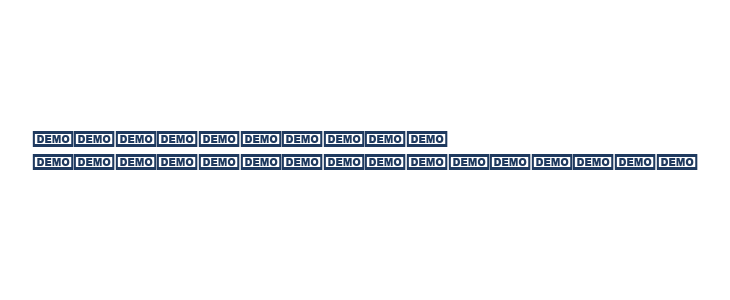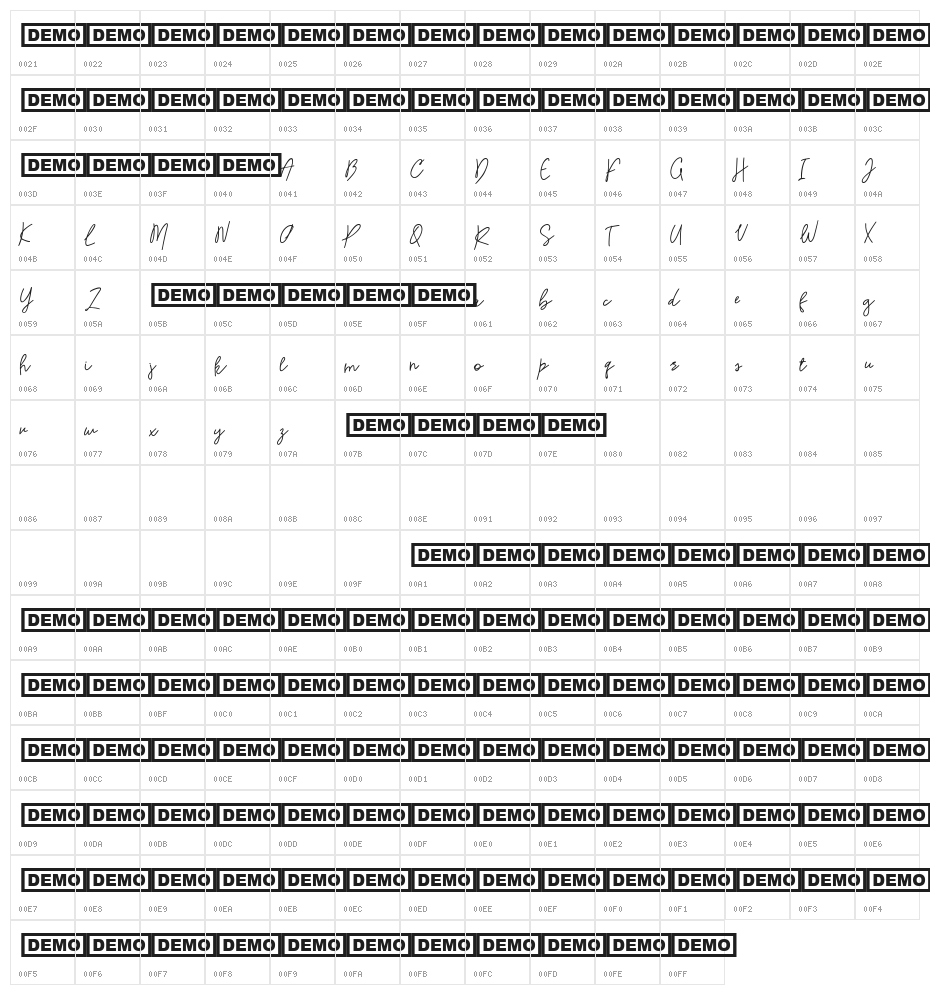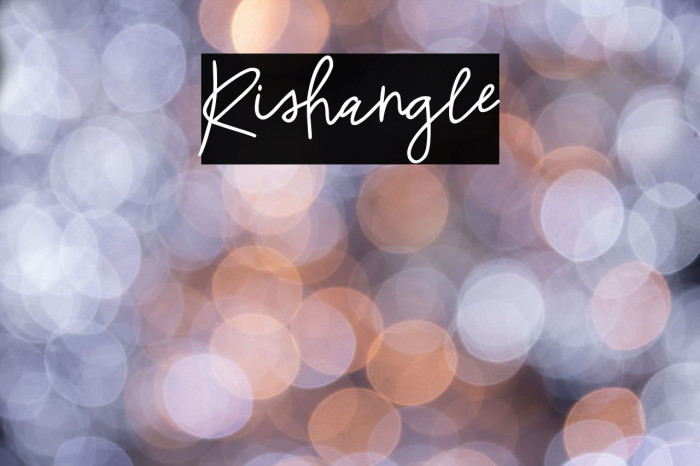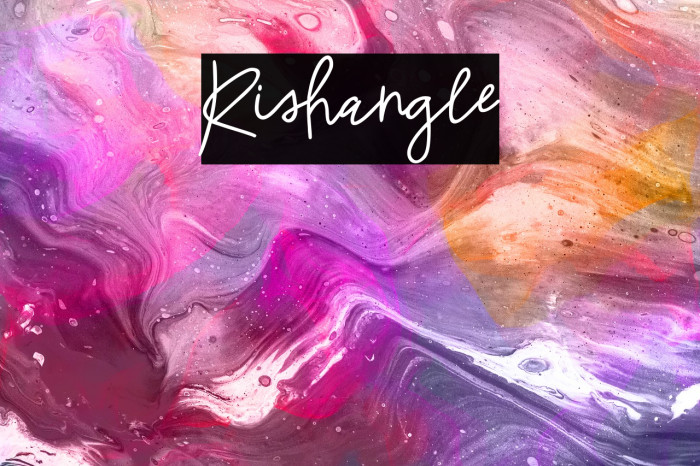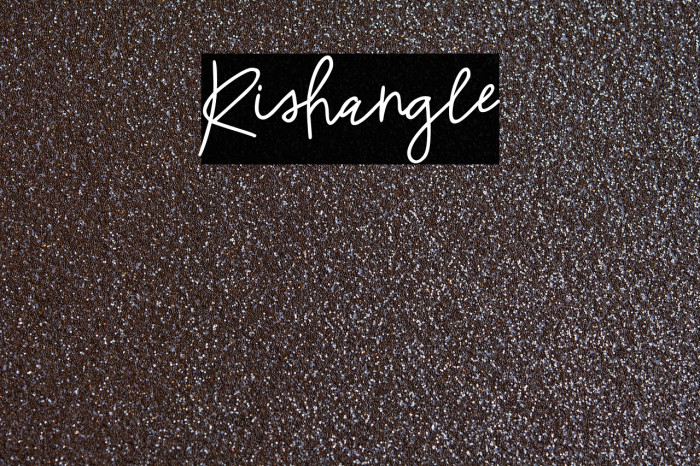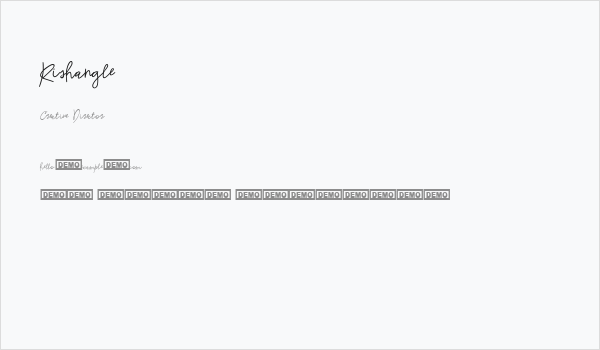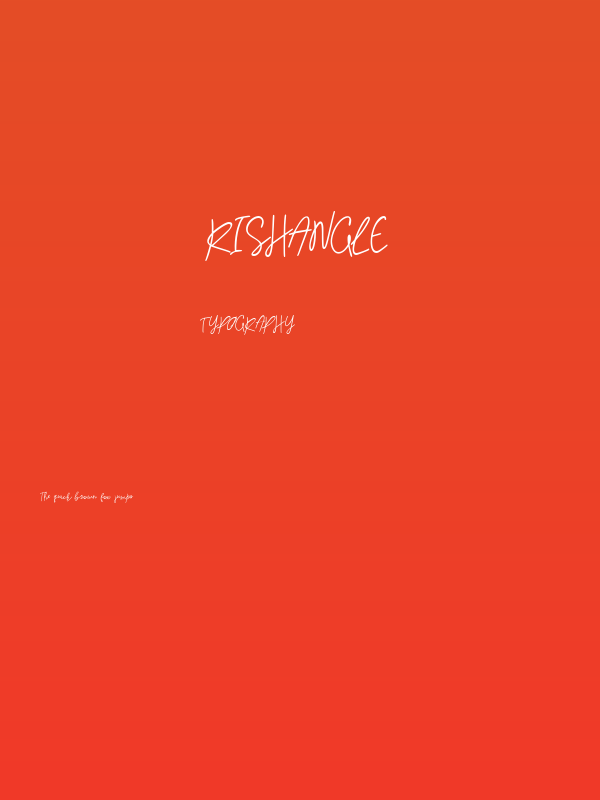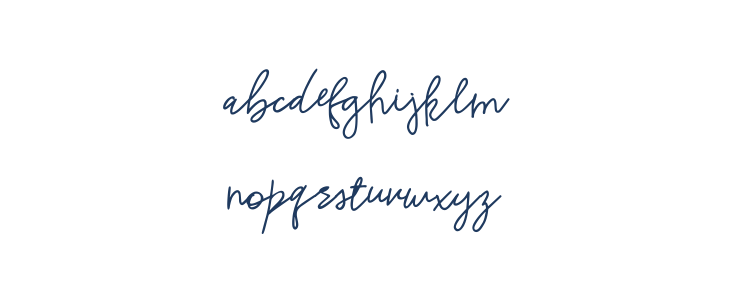
Rishangle Font
Rishangle Description
This font features a handwritten, cursive style with a fluid and dynamic appearance. The letters are interconnected, creating a seamless flow that mimics natural handwriting. The strokes vary in thickness, adding a sense of movement and personality to the text. The uppercase letters are bold and expressive, while the lowercase letters maintain a consistent style with slightly less emphasis. The overall look is elegant and artistic, making it suitable for creative and personal projects. The font's unique character is enhanced by its playful loops and curves, offering a modern twist on traditional script fonts.
| Use Case | Logos, Headlines, Invitations |
| Proposed Projects | Ideal for wedding invitations, greeting cards, personal branding, and artistic projects. |